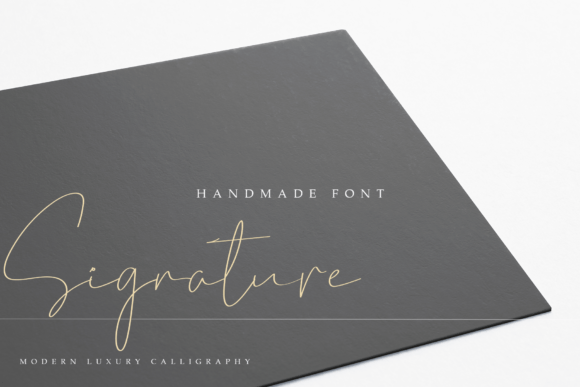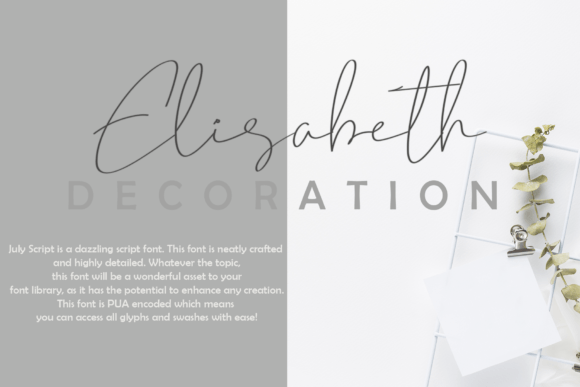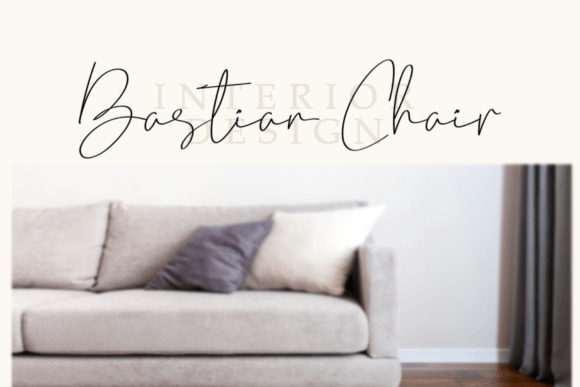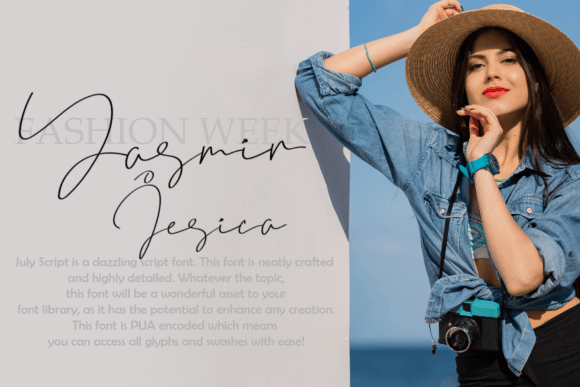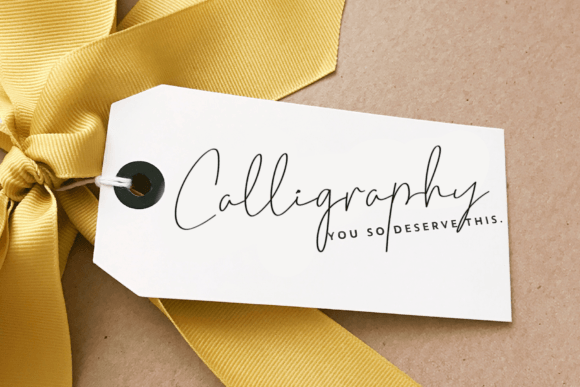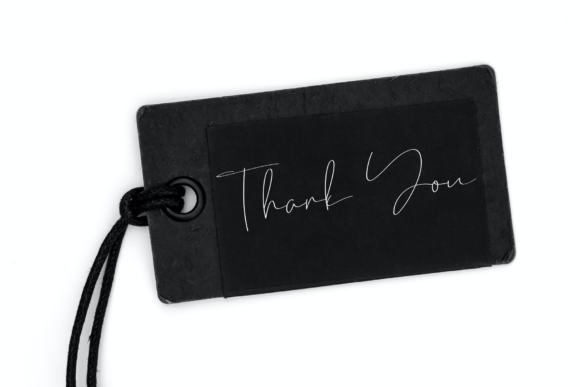
Introduction to July Sweet Font
Remember that moment when you’re brainstorming ideas for a creative project, and the perfect font is the missing piece that brings everything together? For designers, finding the right font can make all the difference between a good design and a great one.
One such font that’s been making waves in the design community is the July Sweet Font, a stylish handwritten font that exudes a contemporary atmosphere and impeccable form. Its timeless classic calligraphy style is a breath of fresh air for designers looking to add a touch of elegance to their projects.
Whether you’re working on a design project that requires a high-quality font or simply looking for a free download to enhance your creative work, the July Sweet Font is a valuable resource that’s sure to elevate your designs.
Key Features of July Sweet Font
- High-quality, professional font suitable for various creative projects
- Unique, modern design with a touch of elegance, making it perfect for various design applications
Honest Review: July Sweet Font
As a designer, I’m always on the lookout for high-quality design resources to elevate my creative projects. Recently, I stumbled upon the July Sweet Font, and I’m excited to share my honest review.
Here’s what I love about this font:
- ✨ Beautiful cursive script: The July Sweet Font has a lovely, elegant feel that’s perfect for adding a touch of whimsy to your designs.
- ✨ High-quality design: The font is well-designed and looks great on both desktop and mobile devices.
- ⚠️ Limited character set: The font only includes uppercase and lowercase letters, with no numbers or punctuation.
- ⚠️ Not suitable for bold text: While the font is beautiful, it’s not well-suited for bold or italic text, which can make it difficult to read.
Overall, I think the July Sweet Font is a great addition to any designer’s toolkit. While it may have some limitations, its unique design and high-quality feel make it a valuable resource for creative projects that require a touch of elegance and sophistication.
Tips for Getting the Most Out of July Sweet Font
To get the most out of the July Sweet Font, use it in conjunction with other design elements, such as graphics and textures. This will help to create a cohesive and visually appealing design. Also, experiment with different font sizes and styles to add emphasis and interest to your design.
The July Sweet Font is perfect for a variety of creative projects, including invitations, social media graphics, and blog posts. Its high-quality design and transparent background make it ideal for creating professional-looking designs that stand out from the crowd.